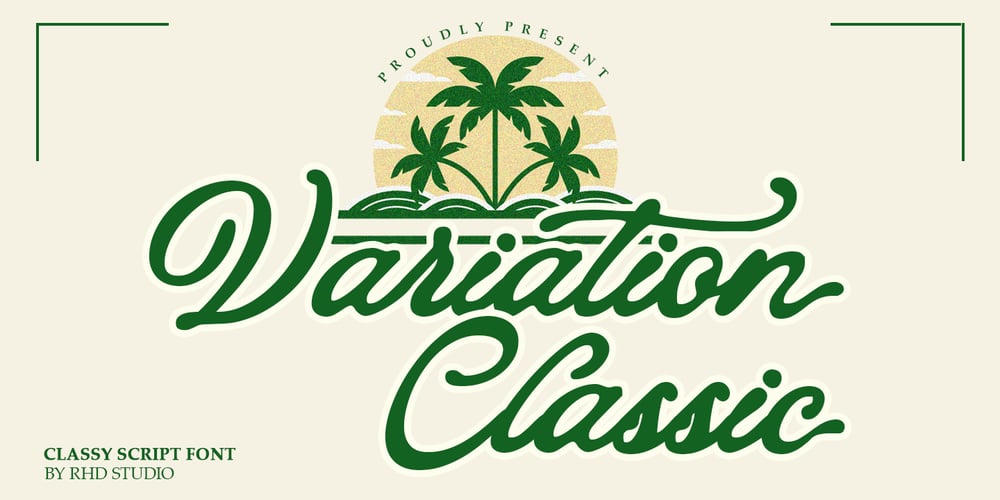
Variation Classic
Variation Classic font
Variation Classic Font Family was designed by Rahmad Rizky and published by Rhd Studio. Variation Classic contains 1 styles and family package options. Variation Classic is a modern classic style script font inspired by classic handwriting in books. This font is complete with 90+ style sets, Contextual Alternatives, ligatures and also multi-language support which adds aesthetics that make your work even more attractive.This font is perfect for your creative projects like Logotype, printed quotes, invitations, cards, product packaging, headers, Letterheads, Apparel, Web design, Magazines, Books, etc.FEATURE: